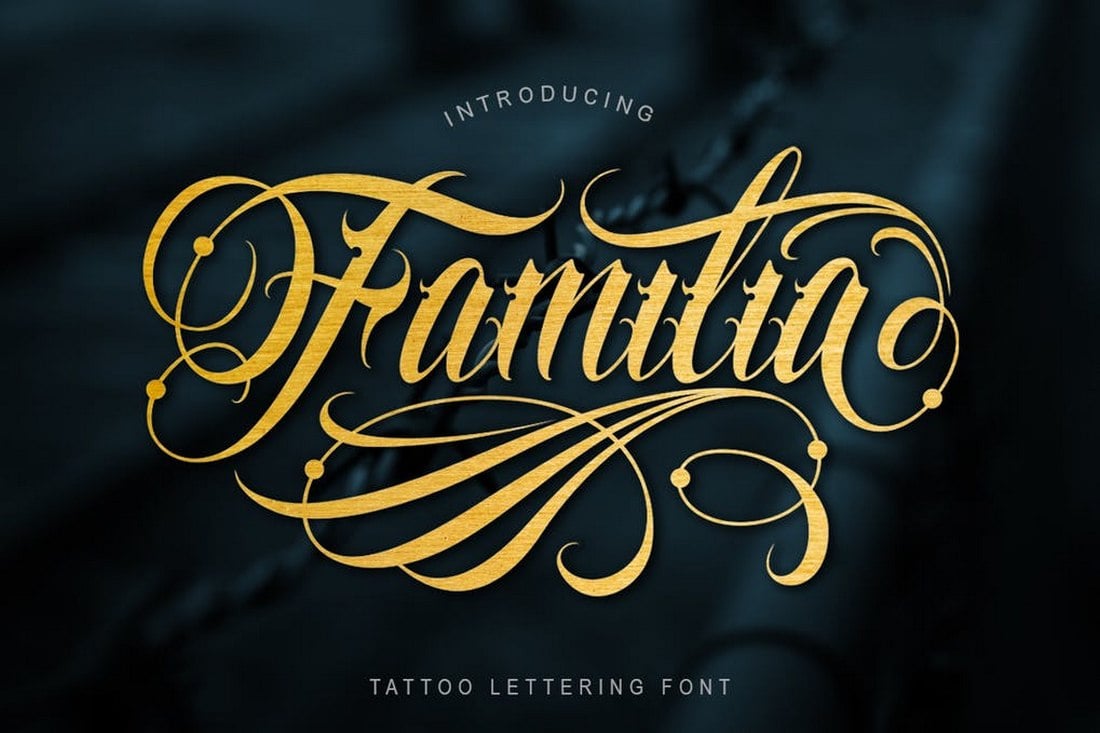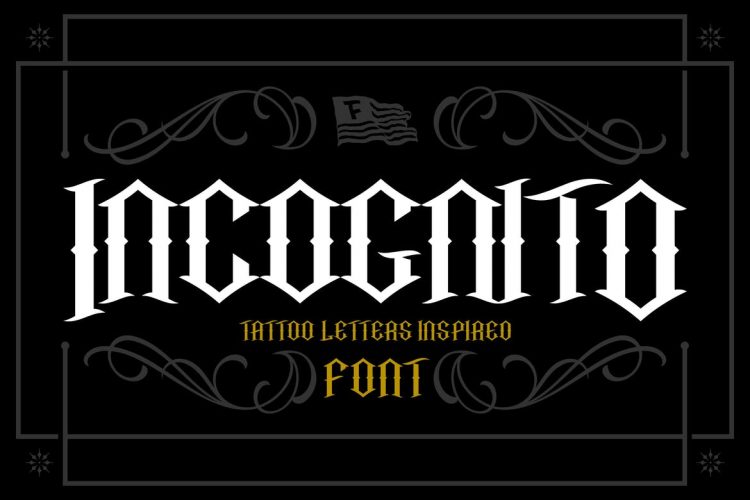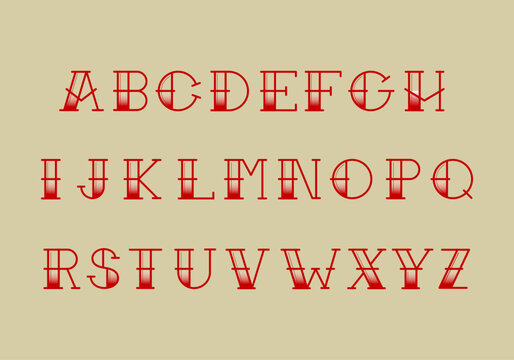
Gothic Lettering Tattoos Tattoo Lettering Gothic Lettering
Tattoo letter fonts alphabet. A blackletter font inspired by that epic Gothic look its unique glyphs make for great tattoo lettering. The font style helps to create beautiful and artistic tattoos. The template background is fully editable and can be changed as per requirement.
Font text goes especially well in tattoos that signify special moments such as My Sister My Friend and similar heartfelt sayings. See more ideas about lettering alphabet lettering tattoo lettering. This is a template theme that has a simple yet effective format.
Sadis Typeface GraphicRiver TTF If youre feeling a little crazy throw the Sadis font into the tattoo mix. Tattoo Lettering Alphabet Calligraphy Tattoo Fonts Tattoo Lettering Styles Chicano Lettering Graffiti Lettering Fonts Tattoo Script Lettering Design Fonts For Tattoos. The font includes several weights that let you choose from hairline thin to heavy bold.
This font have a lot OpenType feature. Psalta is a tattoo style blackletter font that features a narrow design for creating stylish titles and headlines in your posters flyers and T-shirt designs. Pics Photos Fonts Fancy Script Dominic Vasquez Graffiti Alphabet Letters Lettering Alphabet Cursive Letters Fancy Fancy Cursive.
Old English fonts are also used a lot in tattoo designs because they have a distinguished look and evoke some medieval atmosphere. Radical Beat - dcoxy. Lina Script - Måns Grebäck.
The tattoo lettering font template offers a choice of font style that is extremely cursive in nature. Lettering styles include tribal traditional sailor blackletter fancy cursive script etc. The most popular fonts for tattoos are script fonts which usually look personal and unique such as calligraphy and handwriting.
Enter custom sample text to change the font previews below. Looking for Tattoo Lettering fonts. Words of wisdom quotes custom text and more can be included with your tattoo in beautiful custom lettering.
This font features a complete set of letters numbers and punctuation were sure youll love. Tattoo font styles can easily appeal to all manner of designers and artists whether digital or tattoo or traditional. Fortunately we have many unique tattoo font styles for men and women such as calligraphy cursive and traditional styles.
Fonts per page 10 20 50 Sort fonts by. Every font is free to download. Other popular fonts used in tattoos include.
You can also find the best fonts for your project. Cursive tattoo fonts which are custom designed by the many tattoo artists across the globe require a lot of artistic talent and personal creativity. This lettering font design app is great for calligraphy.